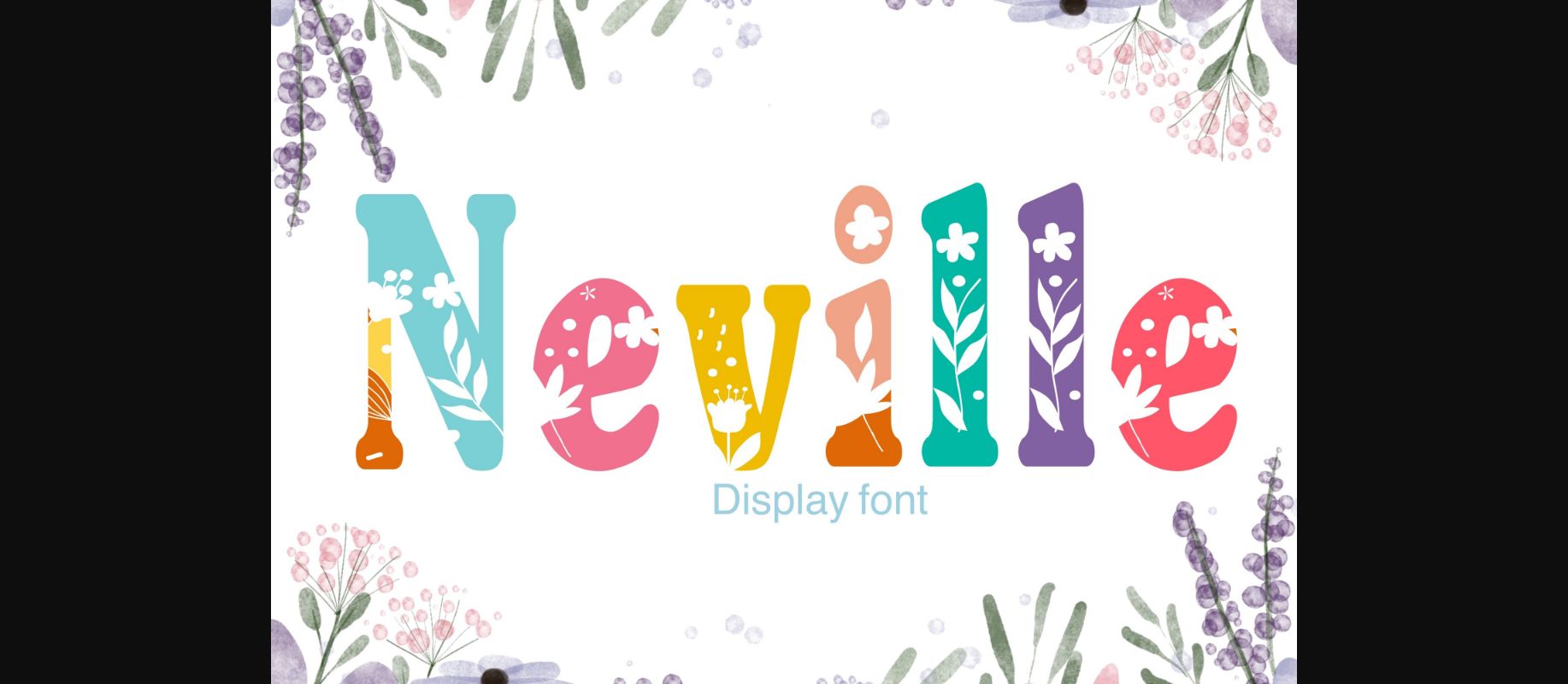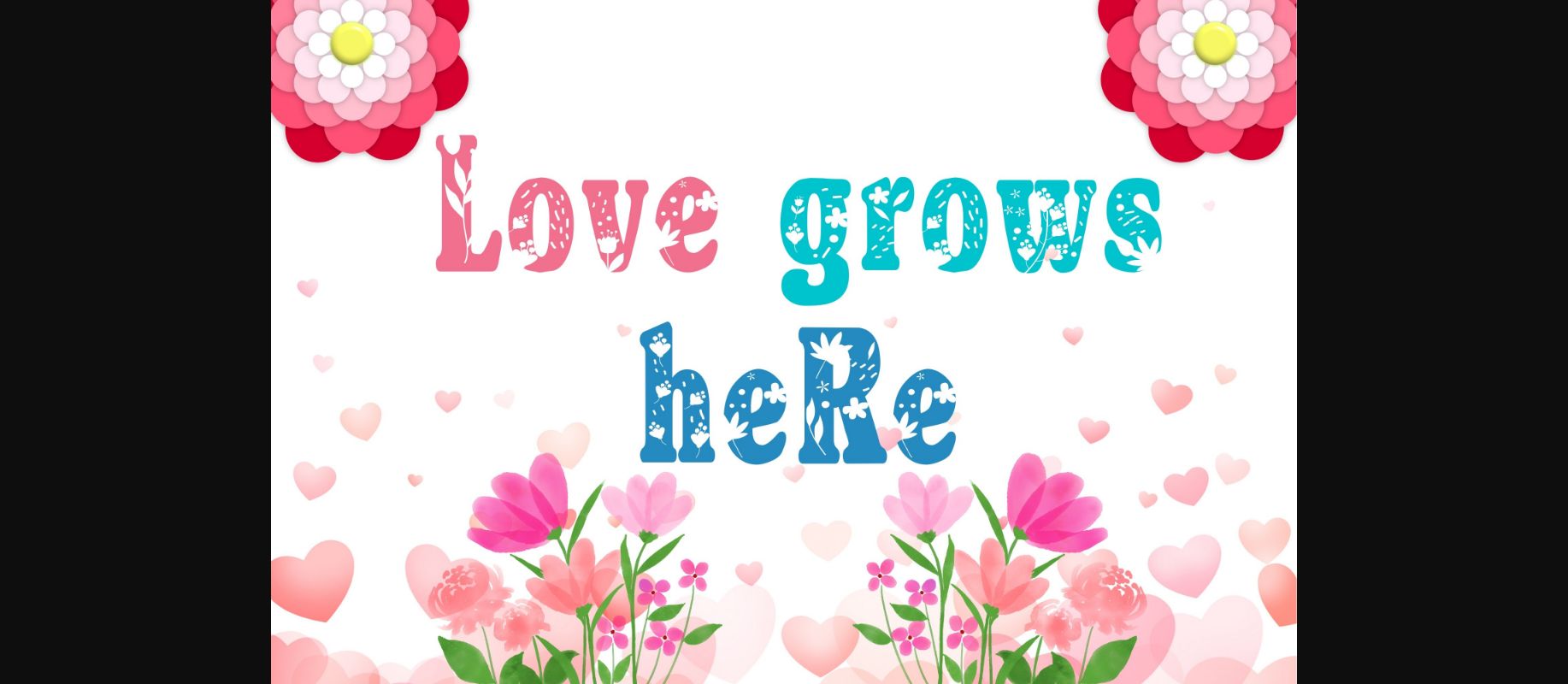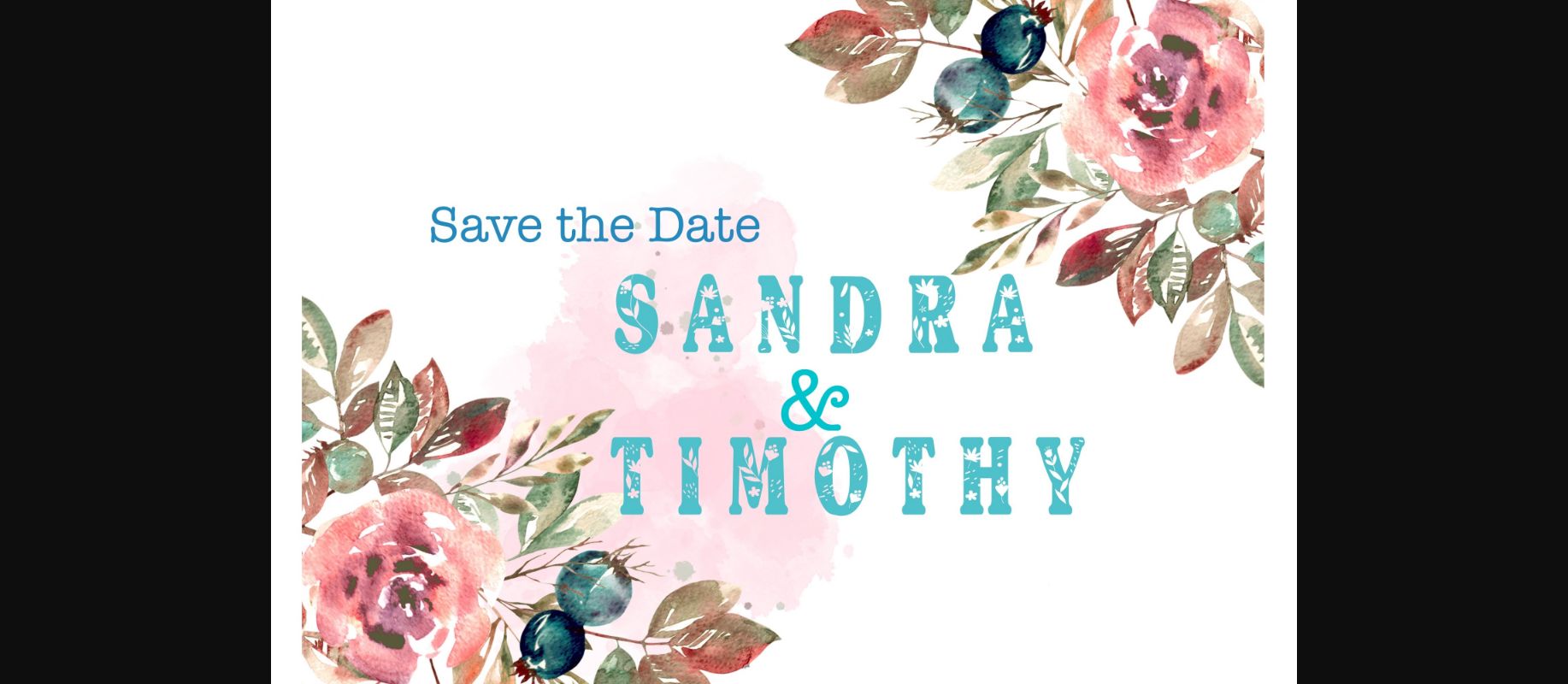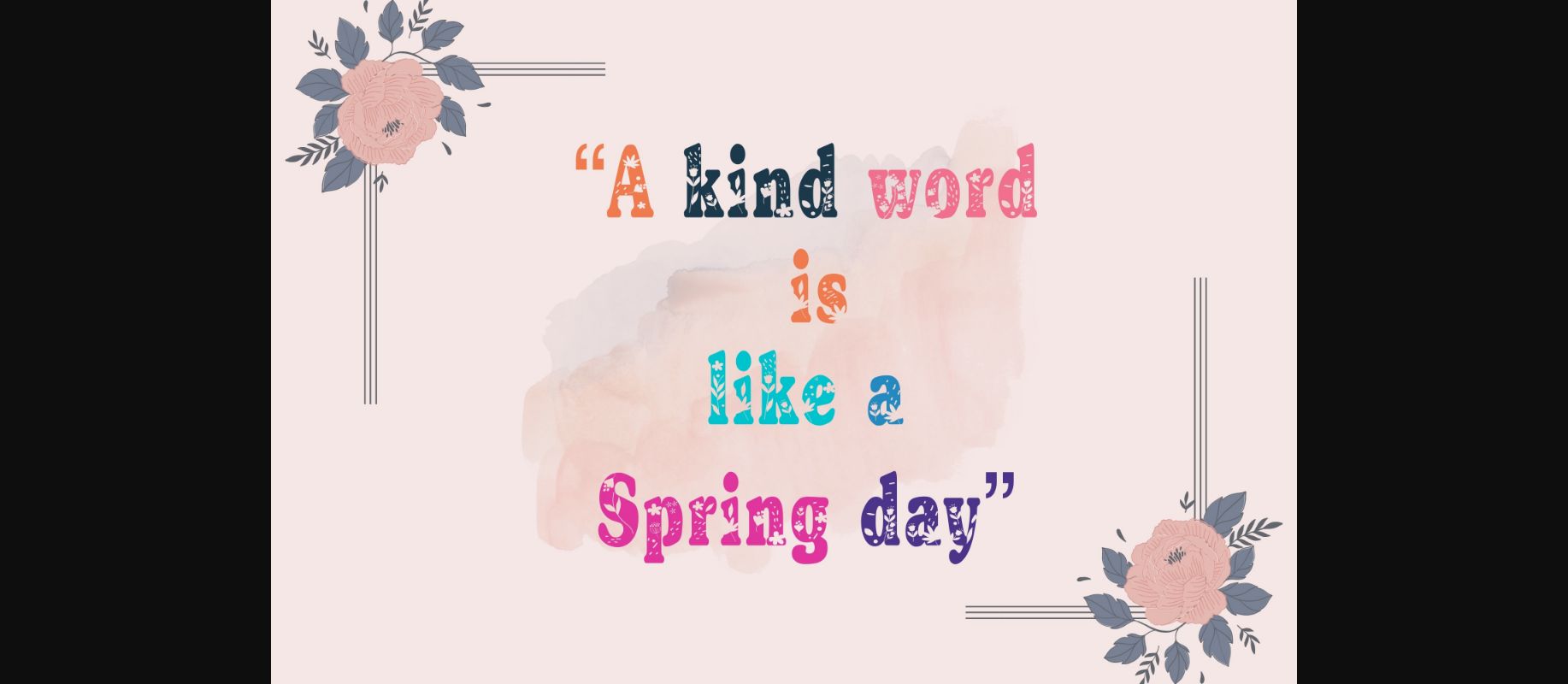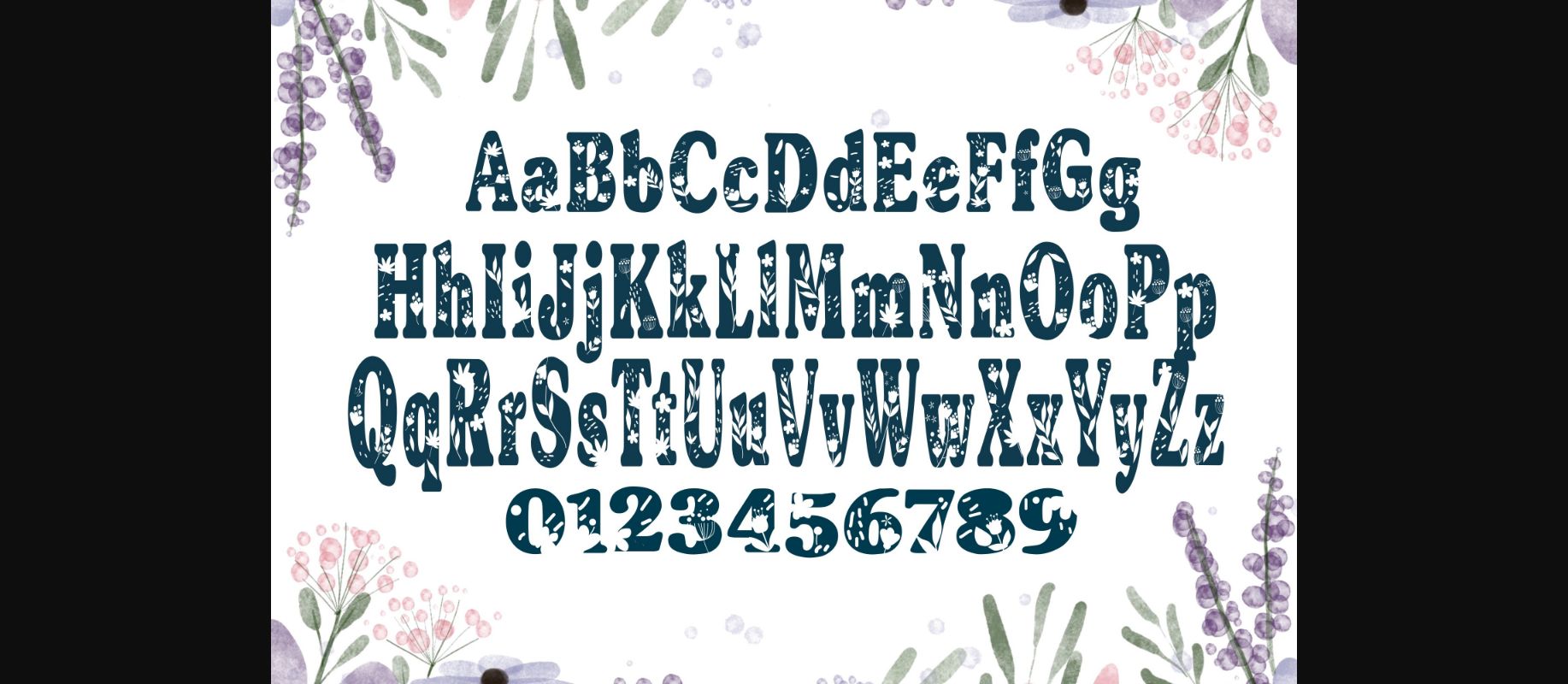
Neville Font
About Neville Font
Neville is a bold and thick lettered decorative font. It embodies playfulness and authenticity and is the perfect choice for decorations at weddings , parties or any children activity or school project.